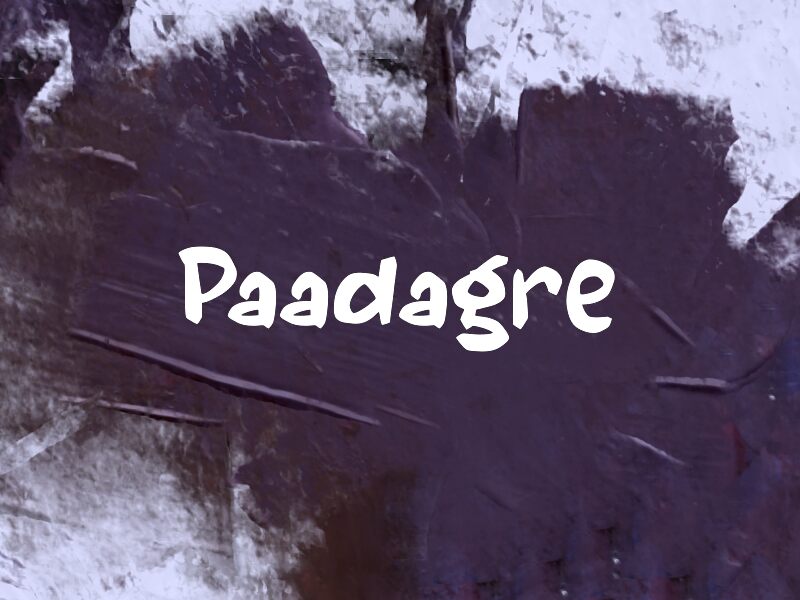
Paadagre font by wep is a free cartoon font offering letters in an informal, contemporary, and even whimsical style. The character design is largely dynamic with stripped lines within the regular lines, creating a sense of movement and energy when using this font in texts. In plus, the different letters although of the same general style show a fun and inviting irregularity in design.
In projects, Paadagre is entertaining for audiences of all ages. It can be used for cartoons (as it is largely the purpose imagined originally), comics, invitations, social media posts, book covers, and bookmarks. It also looks gorgeous on clothes, cards, stickers, and stationery items.
Paadagre is a beautiful and versatile free font that adds a unique touch to any design project. Perfect for both print and digital applications, this font combines elegance with readability, making it suitable for various uses, from branding to editorial design. Whether you are creating invitations, posters, or website graphics, Paadagre will elevate your work with its distinctive style.